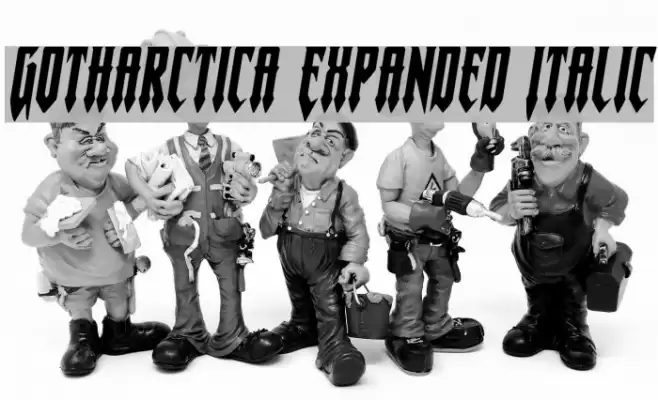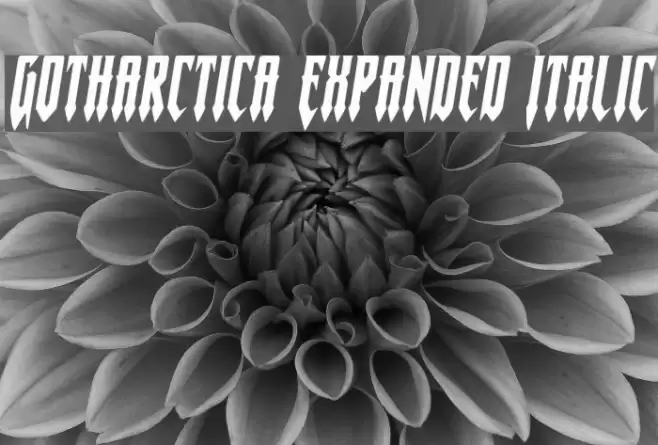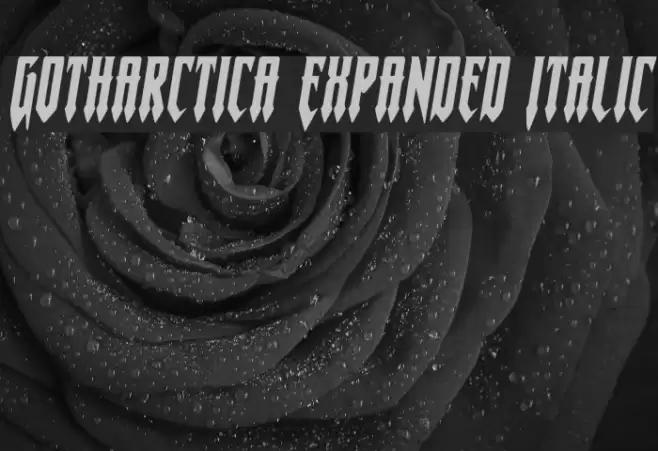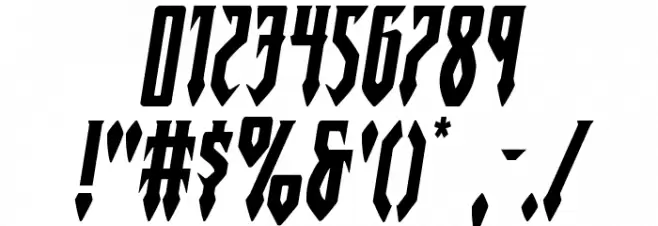
Gotharctica Expanded Italic Font
Gotharctica Expanded Italic Description
This font features a bold and dynamic style with sharp, angular edges and a distinct italic slant. The characters are expanded, giving them a wide appearance that enhances their boldness. The design is reminiscent of Gothic or medieval styles, with a modern twist that makes it suitable for contemporary use. The uppercase and lowercase letters maintain a consistent style, with the numerals and special characters complementing the overall aesthetic. This font is highly decorative, making it ideal for attention-grabbing headlines or logos.
A bold, expanded, and italic Gothic-style font with sharp, angular edges from Horror fonts.
- Proposed Projects: Ideal for use in branding, posters, album covers, video game titles, and any project requiring a striking, bold aesthetic.
- Width: Expanded
- Overall Style: Modern Gothic